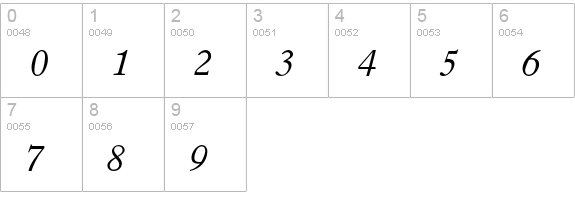
Old Style 7 Italic is a distinctive, italic variant in the Old typeface family \xE2\x80\x94 well suited to design and typography projects.
Old Style 7 Italic font is a classic and elegant typeface that exudes sophistication and charm. Its slanted, italicized design adds a touch of flair to any project, making it perfect for adding a touch of style to invitations, branding materials, and more. The timeless appeal of Old Style 7 Italic font makes it a versatile choice for both print and digital designs. What's even better is that Old Style 7 Italic font is available for free download at FontsMarket.com. This means you can easily access this beautiful font to enhance your creative projects without any cost. Don't miss out on the opportunity to add a touch of vintage elegance to your designs with Old Style 7 Italic font, now available for free at FontsMarket.com.